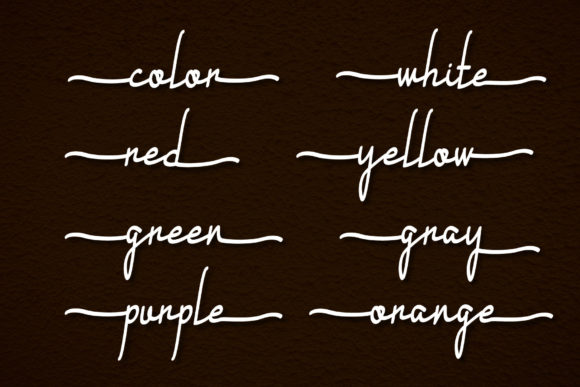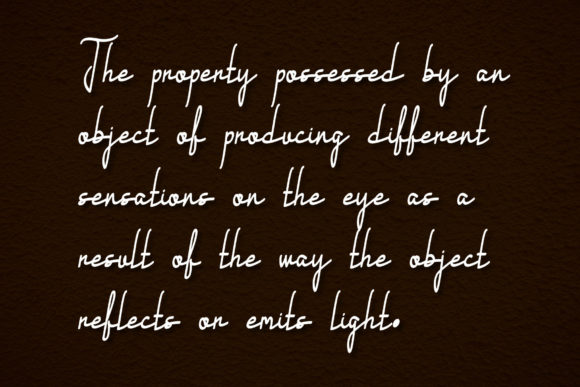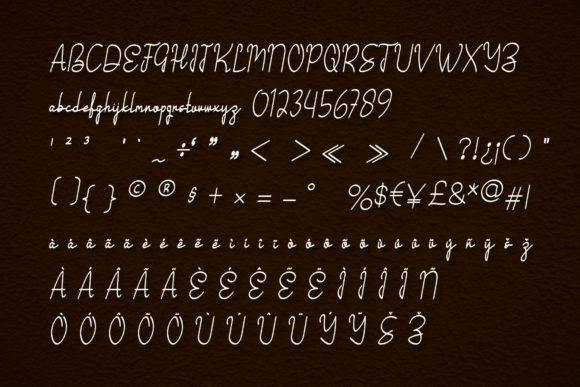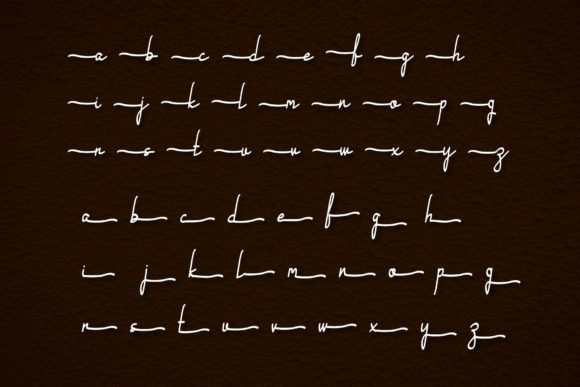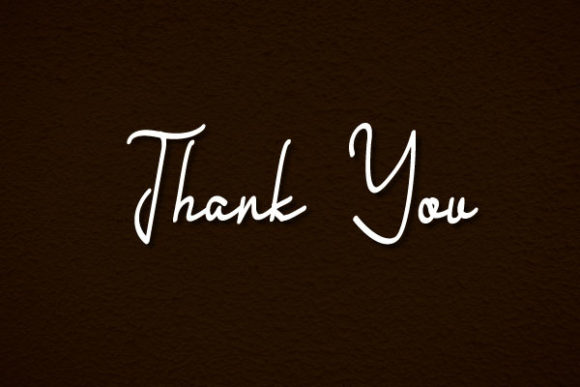
Brown Font: Elevate Your Designs with this Fashionable Script Font
Are you tired of using the same old fonts in your designs? Look no further than Brown Font, a stylish and sophisticated script font that’s sure to take your creations to the next level. With its neat and detailed craftsmanship, Brown Font is the perfect addition to any font library, regardless of the topic or theme.
What Makes Brown Font So Special?
Brown Font is more than just a pretty face – it’s a highly versatile and functional font that’s designed to enhance any creation. Here are just a few of the features that make Brown Font stand out:
- Neatly Crafted and Highly Detailed: Brown Font is meticulously designed to provide a clean and elegant look that’s perfect for a wide range of design applications.
- PUA Encoded: Brown Font is PUA (Private Use Area) encoded, which means that you can access all of the glyphs and swashes with ease. This makes it simple to customize your designs and add a personal touch.
- Fashionable Script Style: Brown Font features a beautiful script style that’s perfect for creating elegant and sophisticated designs. Whether you’re working on a logo, brochure, or website, Brown Font is sure to make a statement.
Why Choose Brown Font?
With so many fonts to choose from, why should you choose Brown Font? Here are just a few reasons why Brown Font is a great choice for designers and crafters:
- Enhance Any Creation: Brown Font has the potential to enhance any creation, regardless of the topic or theme. Whether you’re working on a design project for a client or creating something for personal use, Brown Font is sure to add a touch of elegance and sophistication.
- Versatile and Flexible: Brown Font is highly versatile and flexible, making it perfect for a wide range of design applications. From logos and brochures to websites and social media graphics, Brown Font can be used in almost any design project.
- Easily Customizable: With its PUA encoding, Brown Font is easily customizable. You can access all of the glyphs and swashes with ease, making it simple to add a personal touch to your designs.
How to Use Brown Font in Your Designs
Now that you know a little bit more about Brown Font, let’s talk about how to use it in your designs. Here are a few tips to get you started:
- Pair it with Other Fonts: Brown Font pairs well with a variety of other fonts, making it easy to create a unique and visually appealing design. Try pairing it with a bold sans-serif font for a striking contrast.
- Use it for Headings and Titles: Brown Font is perfect for headings and titles, where its elegant script style can really shine. Try using it to add a touch of sophistication to your design.
- Experiment with Different Colors: Brown Font looks great in a variety of colors, from rich browns and tans to bold brights and pastels. Experiment with different colors to find the perfect look for your design.